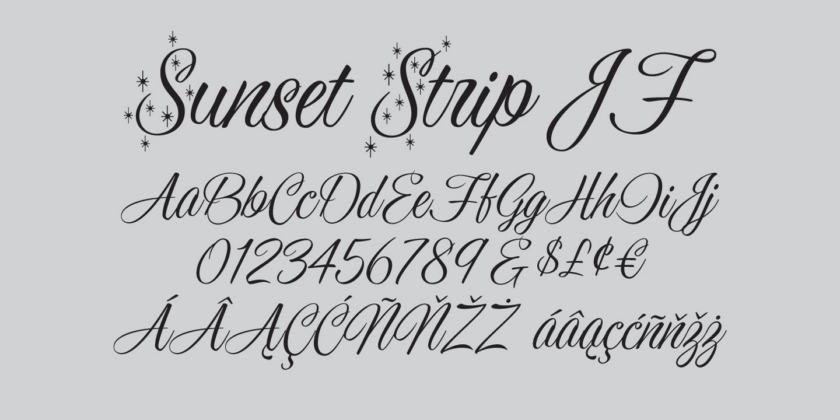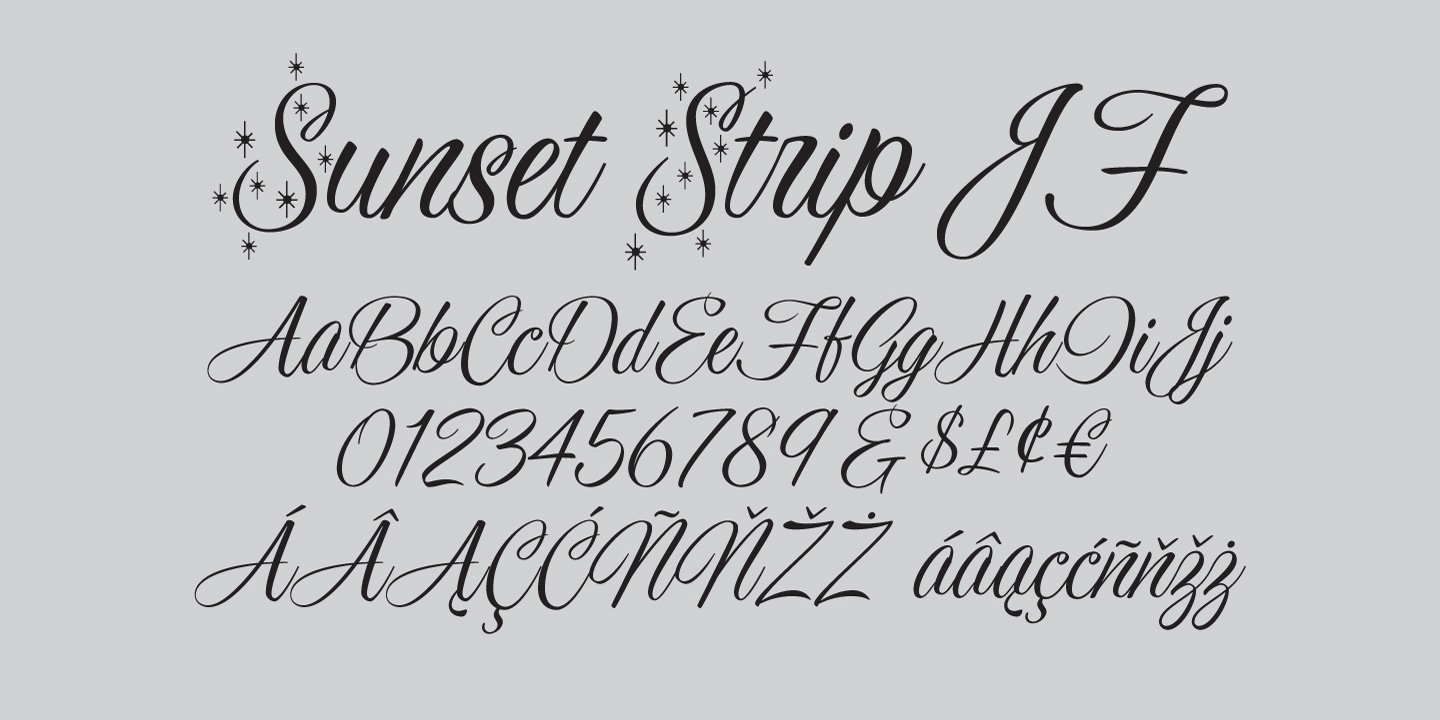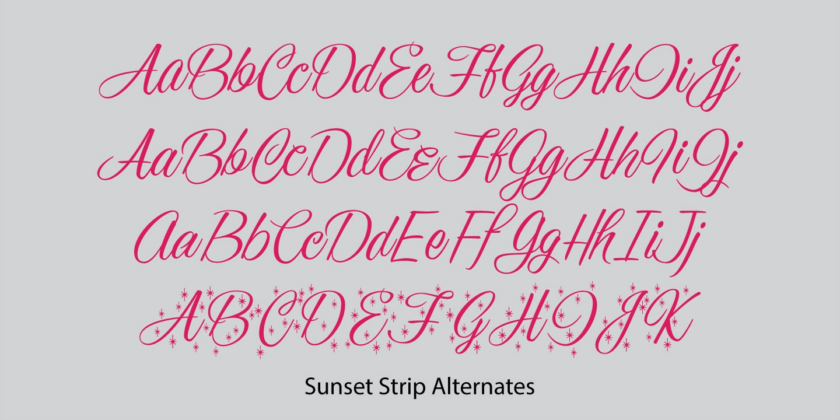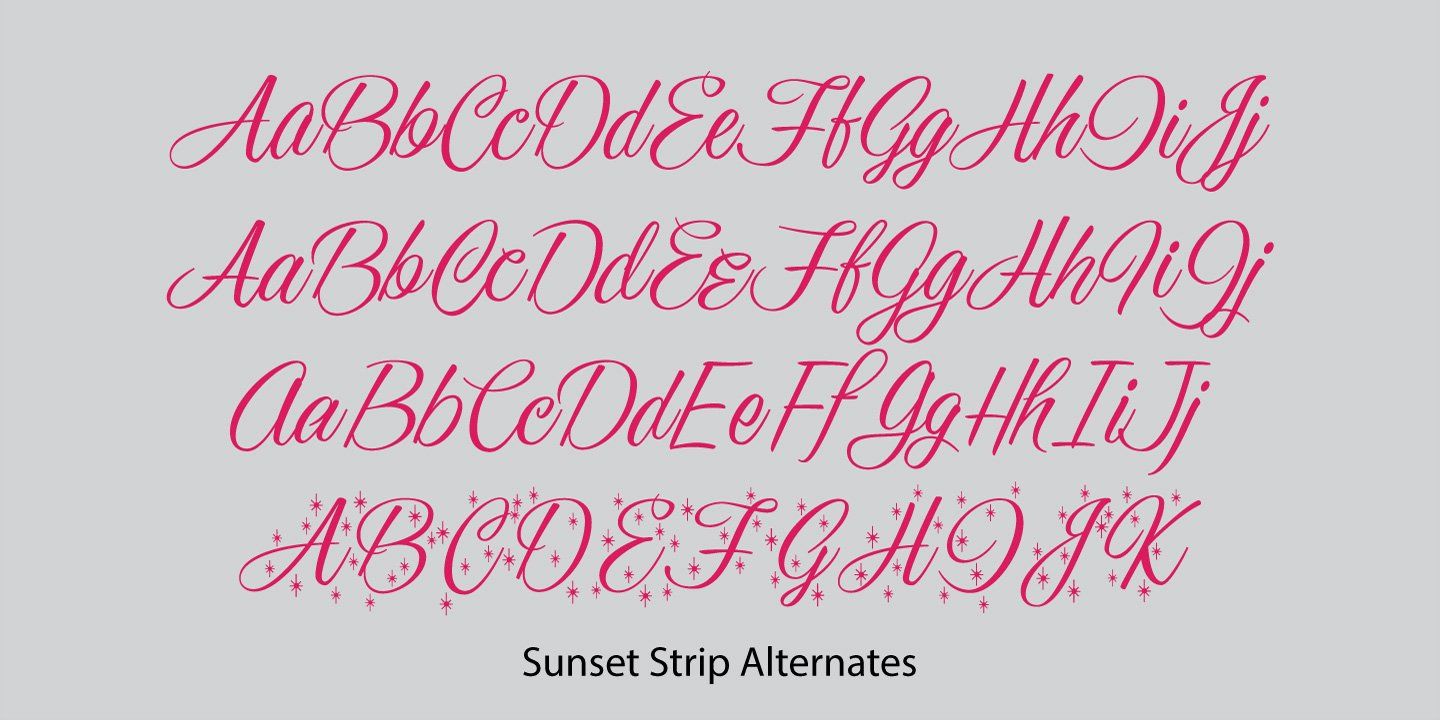
Sunset Strip
About Sunset Strip
Sunset Strip is a beautiful casual script font with a wide range of applications. This original Jukebox font is another in the series of typefaces I created based on the work of the venerable late sign painter Mike Stevens. The flowing ease of this font…